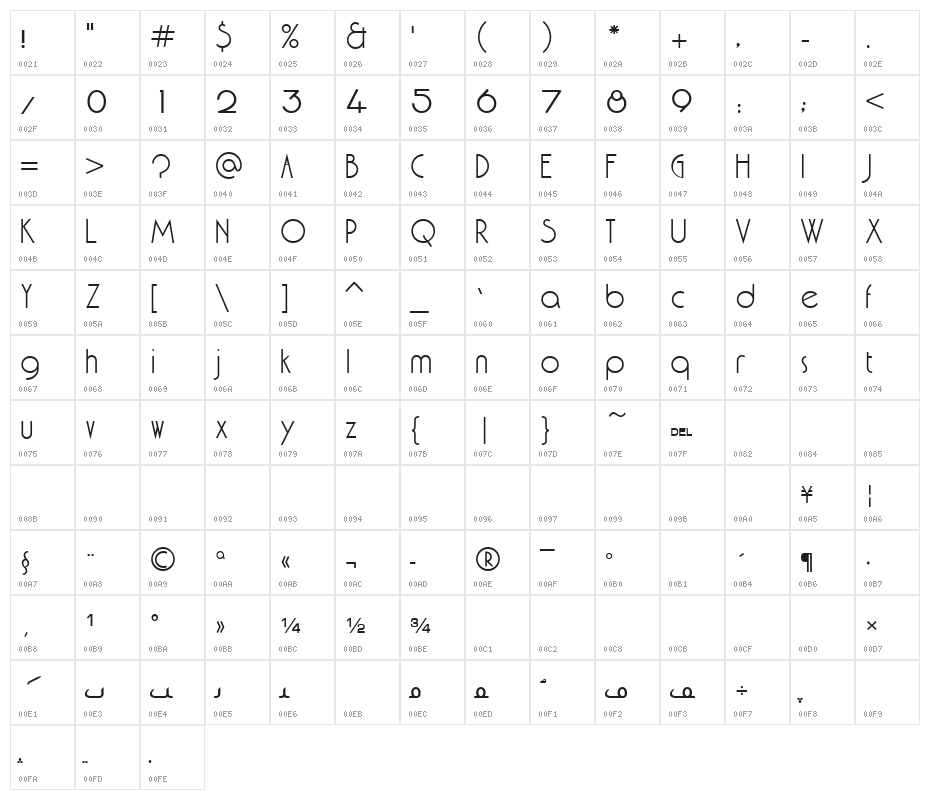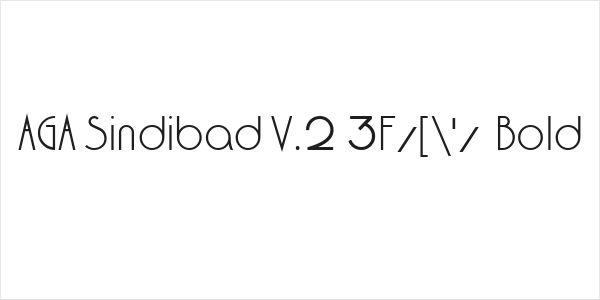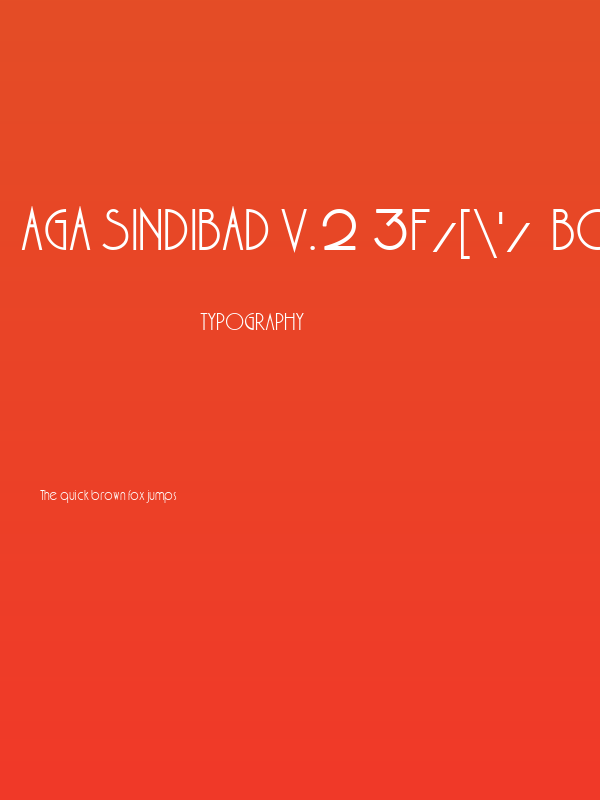
AGA Sindibad V.2 3F/['/ Bold Font
AGA Sindibad V.2 3F/['/ Bold Description
This font features a sleek and modern design with clean, geometric lines. The uppercase letters are tall and narrow, giving a sophisticated and elegant appearance. The lowercase letters maintain a consistent style, with smooth curves and a balanced structure. Numbers are clear and legible, making them suitable for various applications. The special characters are distinct and well-integrated into the overall design. This font's simplicity and clarity make it versatile for both digital and print media.
Use CaseHeadlines, Logos, Branding
Proposed ProjectsIdeal for branding, editorial design, advertising, and digital interfaces.